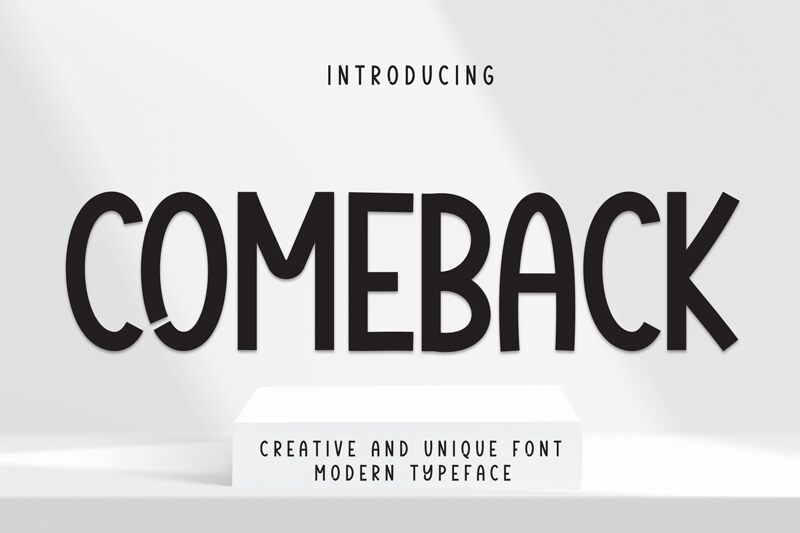
Comeback
Comeback font by Andi Moz is a condensed, vintage-inspired display typeface with a touch of geometric influence. It boasts strong presence and clean lines, making it ideal for both retro and contemporary designs. The modernized details create an engaging look across different styles and applications.